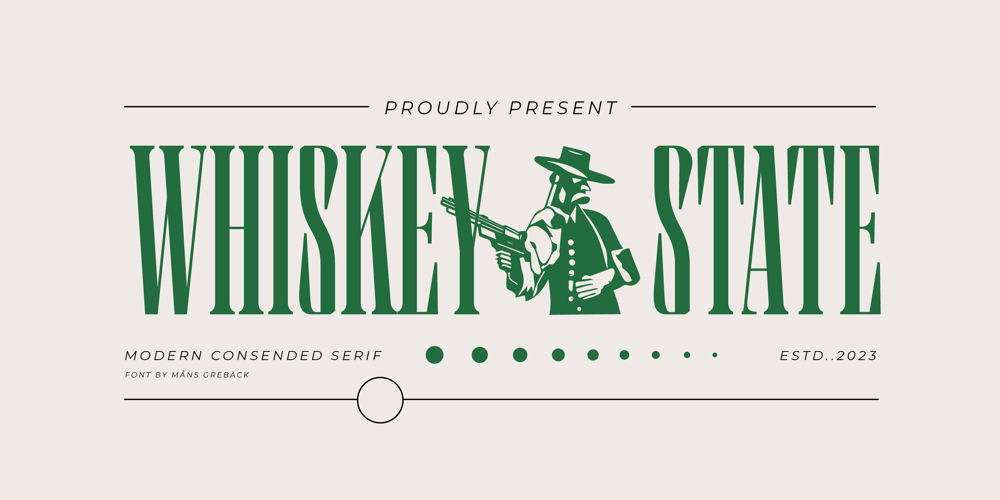
Whiskey State Font Family was designed by Måns Grebäck and published by Mans Greback. Whiskey State contains 6 styles and family package options. Whiskey State strides onto the canvas like a cowboy entering a saloon: Tall, confident, and impossible to ignore. The font boasts an impressive height, stretching upwards with the same vigor as plumes of smoke rising from a smoldering campfire. Every letter stands upright and proud, imbued with the spirit of the Old West, yet exuding a contemporary coolness and innovativity. Its serifs aren’t just appendages; they are expressions, giving the typeface its unique, assertive character.